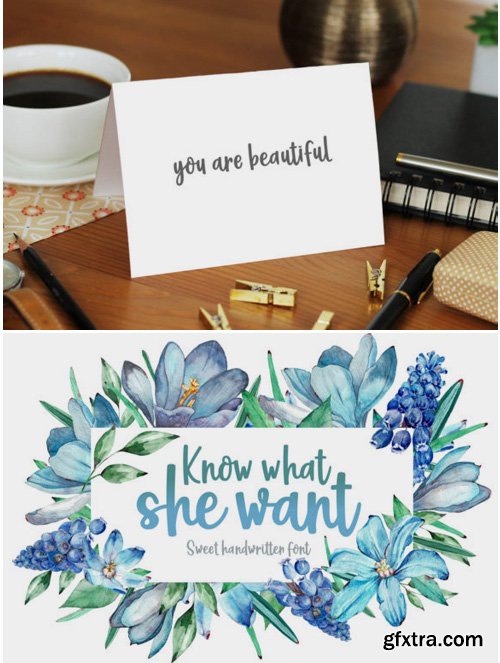
Know What She Want Font
Know What She Want is a sweet and delicate handwritten font with an undeniably romantic feel. Fall in love with its authentic charm!